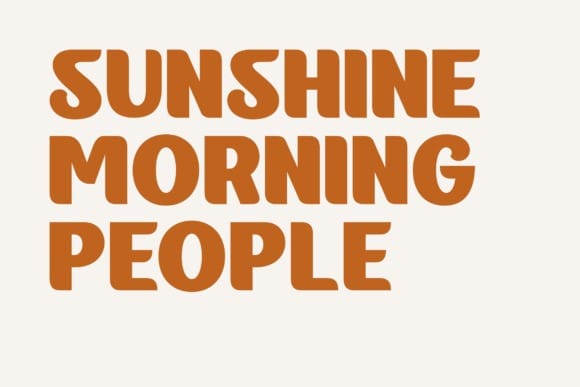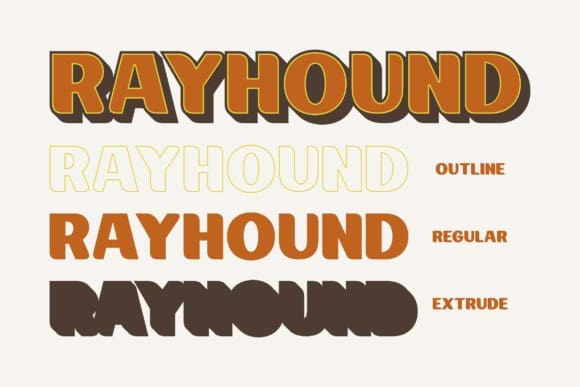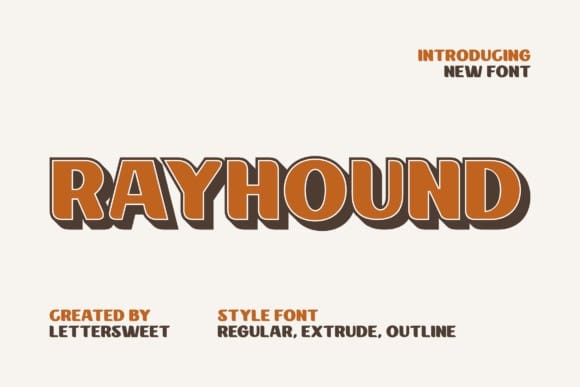
Rayhound Font
Rayhound Font, an exquisitely curated sans serif display type font. Tailored to command attention, Rayhound is designed to make your headlines distinct, infusing individuality into your invitations, and amplifying your brand’s personality. Its dynamic presence breathes life into posters and transforms the simple spaces of brochures into captivating visual journeys. Unleash Rayhound’s potency in your projects for a revamped aesthetic experience.